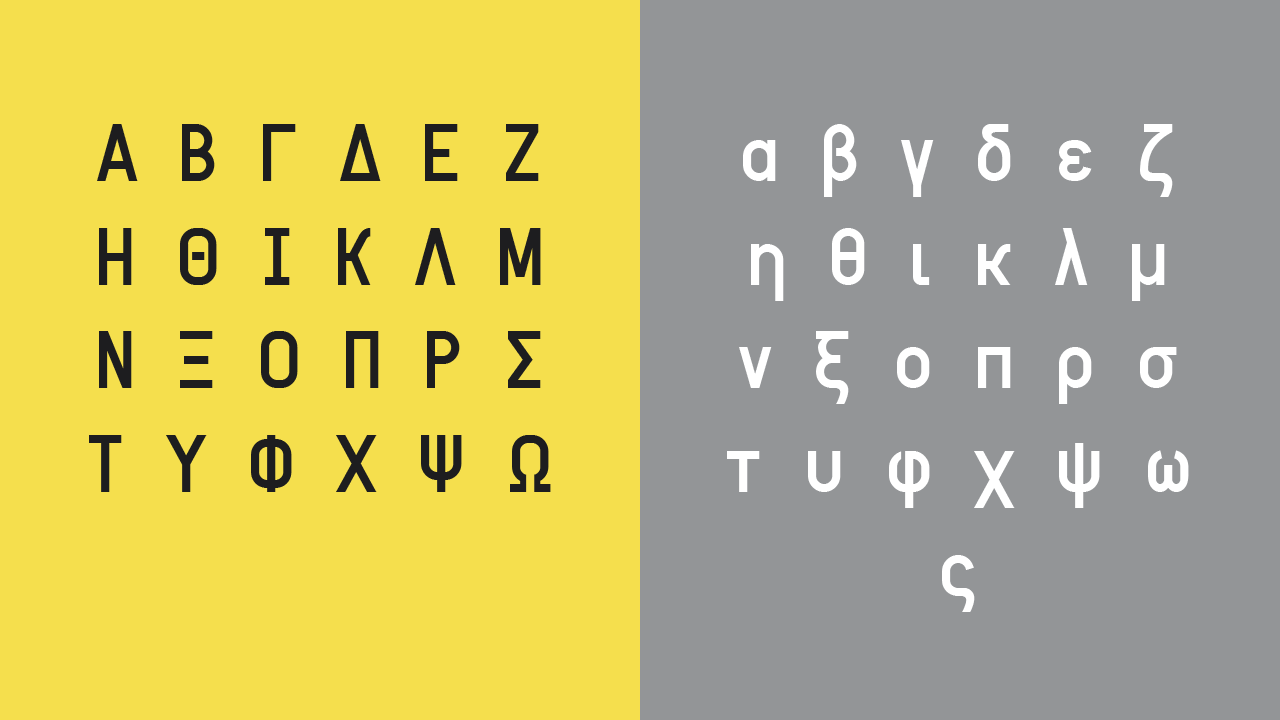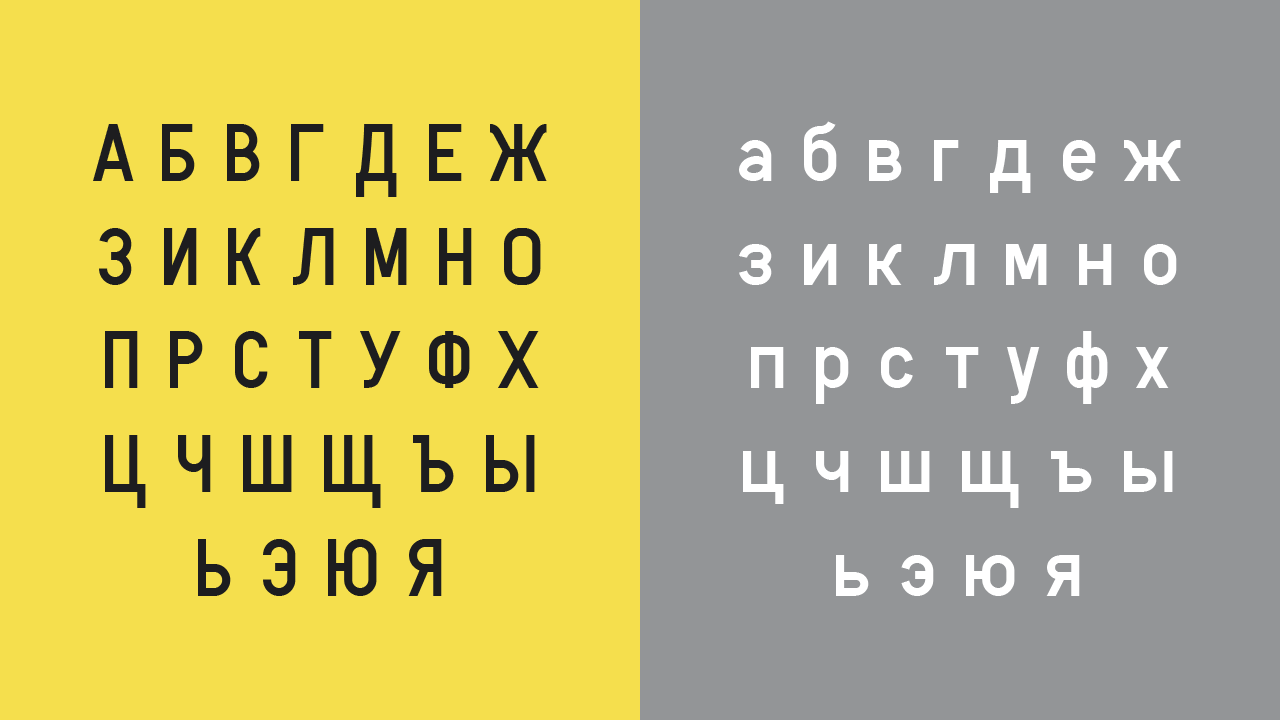
Version 0.25 - Cyrillic, Greek
Cyrillic script and Greek alphabet are now included.
An alternative lowercase letter 'a' with OpenType font features is now available.
Added 257 new glyphs.
Correct spaces between "oa" characters (Kerning).
New glyphs include:
АаБбВвГгДдЕеЖжЗзИиКкЛлМмНнОоПпРрСсТтУуФфХхЦцЧчШшЩщЪъЫыЬьЭэЮюЯяЙйЍѝӢӣӤӥҊҋЁёЀѐӖӗІіЇїЈјЅѕӐӑӒӓӔӕЎўӮӯӰӱӲӳЌќЃѓҐґҒғЄєЏџӨөӪӫҮүҰұӘәӚӛӀӏҸҹҠҡҤҥЊњЉљЂђЋћҢңҲҳҚқҬҭӁӂҺһΑαΒβΓγΔδΕεΖζΗηΘθΙιΚκΜμΝνΞξΟοΠπΡρΣσΤτΥυΦφΧχΨψΩωςϐϴϕͿϳϹϲϽͻϾͼϿͽΪϊΫϋΐΰΆάΈέΉήΊίΌόΎύΏώ΄΅·;ʹ͵ͺῊὴῸὸῆῶϘϙɸϖƱΩ℧ΉήΌό